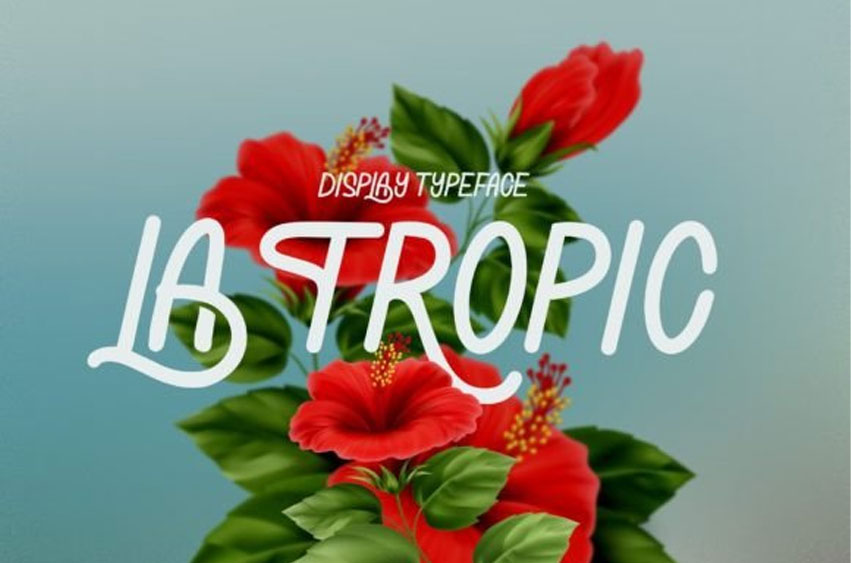
La Tropic Font
La Tropic Font is a stylish and modern display font with a sweet, summery vibe. Masterfully designed to become a true favorite, this font has the potential to bring each of your creative ideas to the highest level!